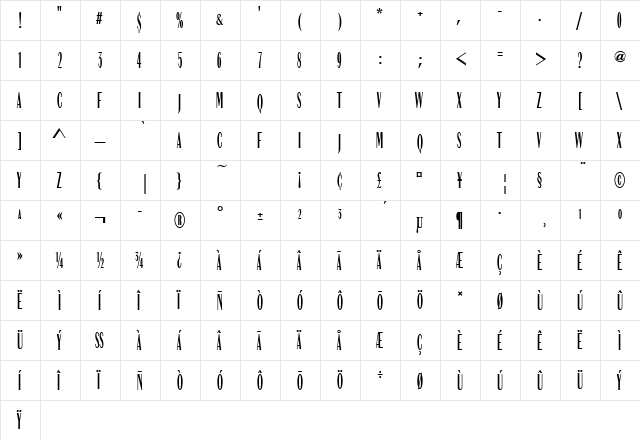
Becker Compress Regular
Design Context for Becker Compress Typeface
Becker Compress offers clean, dependable letterforms without strong stylistic allegiance, making it a practical choice for designers who need flexibility.